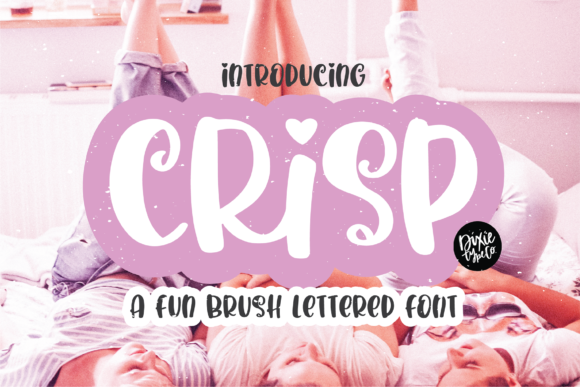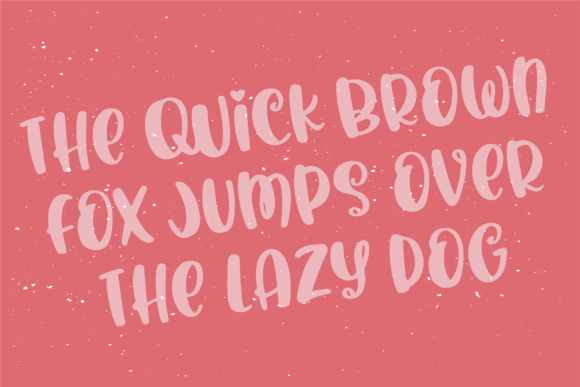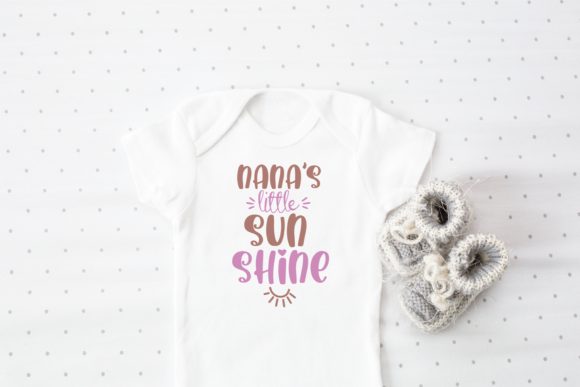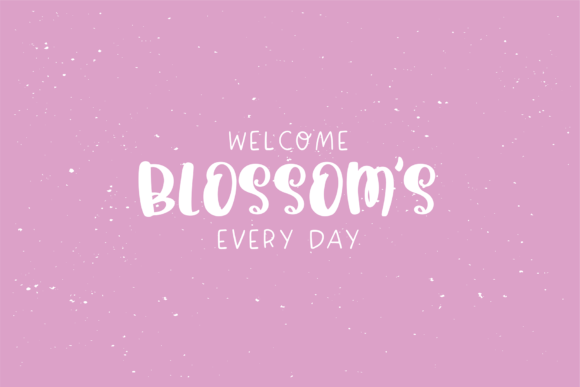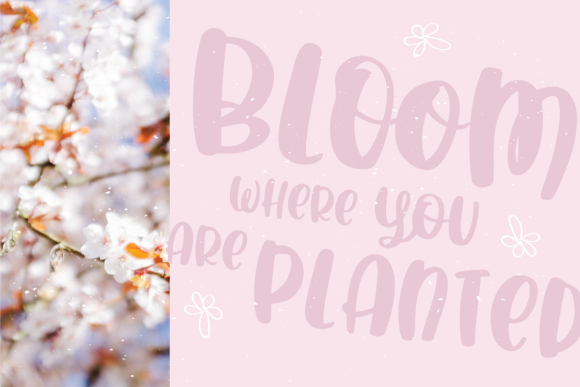
Crisp Font
About Crisp Font
Crisp is a bold brush lettered script font. It features a natural charm and it is the perfect fit for all of your logos, branding, social media, and crafty DIY projects.